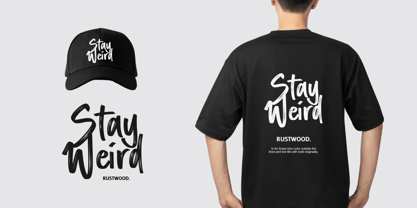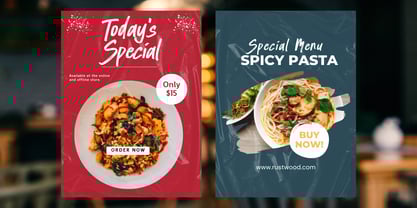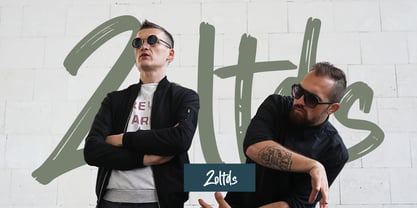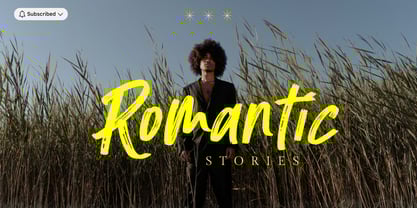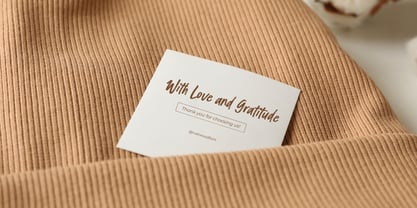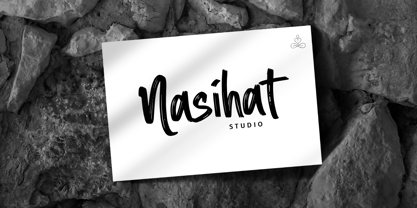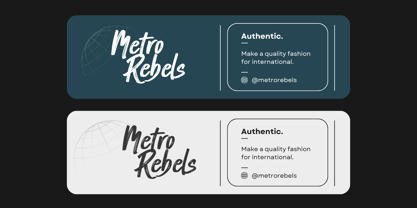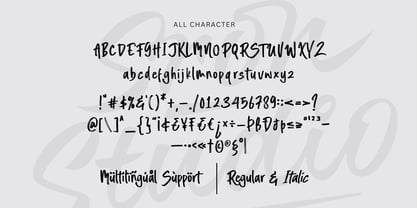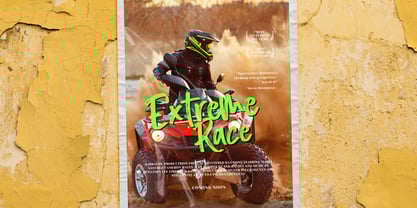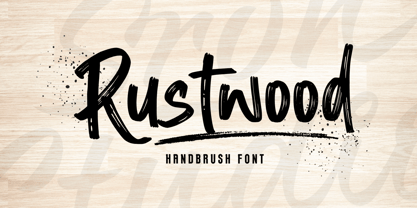
Rustwood
by Sronstudio
The Rustwood Font Family was designed by Muhamad Yusron Billah and published by Sronstudio. Rustwood contains 2 styles and family package options.
Rustwood is a bold and expressive brush font that captures the raw energy of hand-painted strokes. With its rugged texture and dynamic letterforms, this font is perfect for branding, posters, apparel, packaging, and any project that needs a touch of authenticity and creativity. Rustwood brings a handcrafted feel, making your designs stand out with personality and style.
- Regular & Italic Style
- Uppercase & lowercase letters
- Numerals & punctuation
- Multilingual support